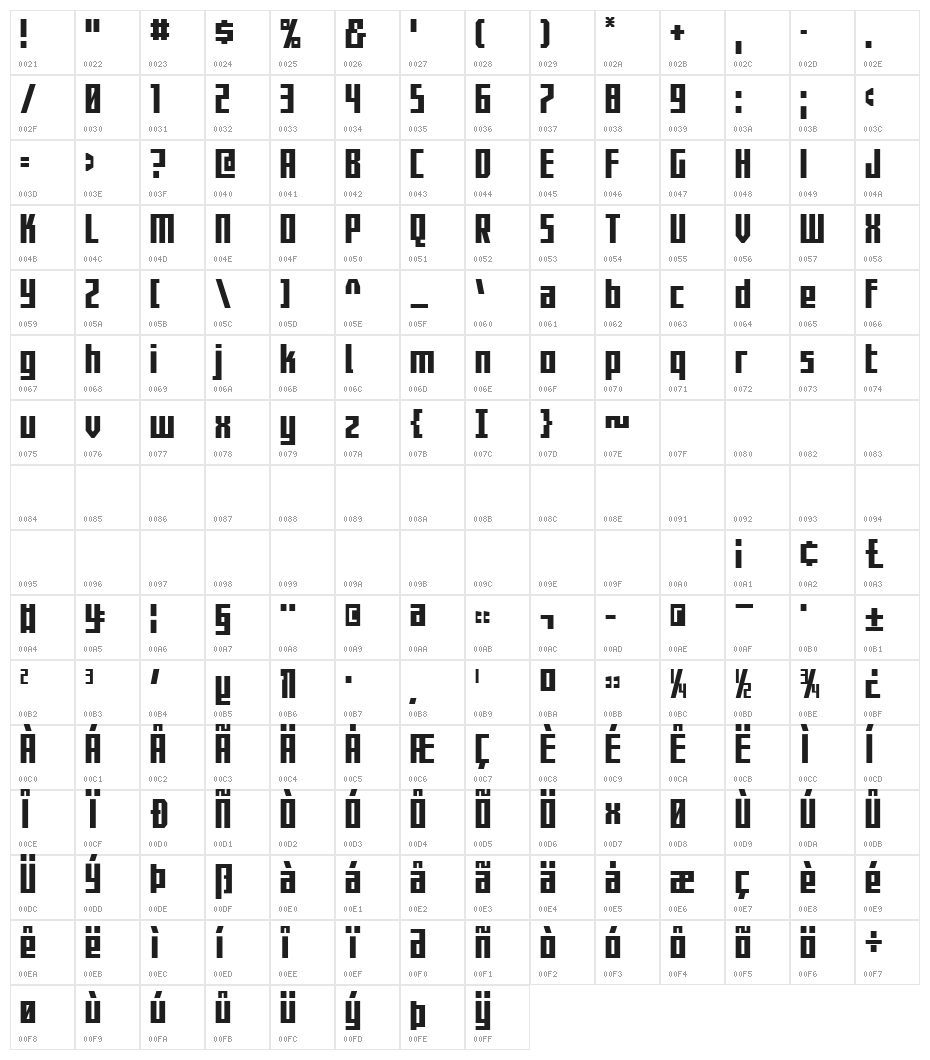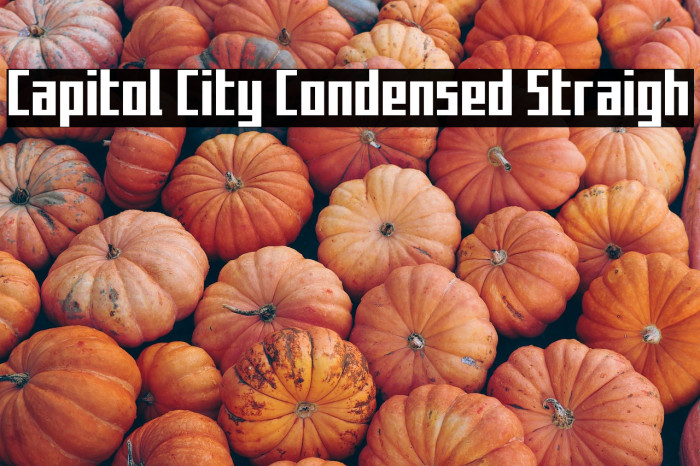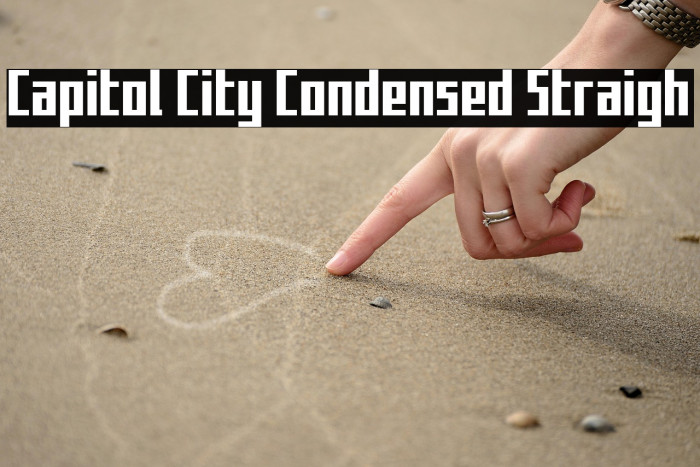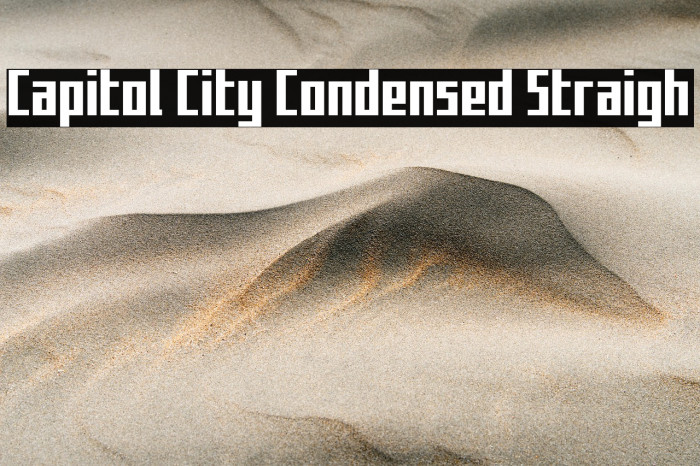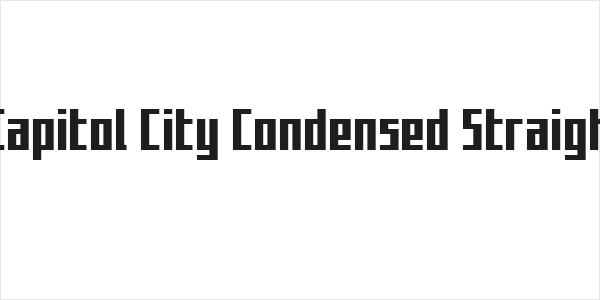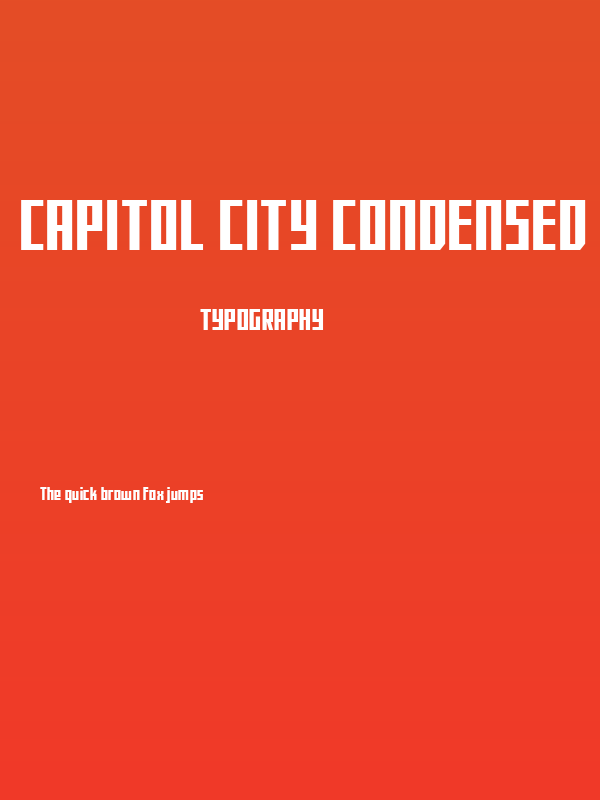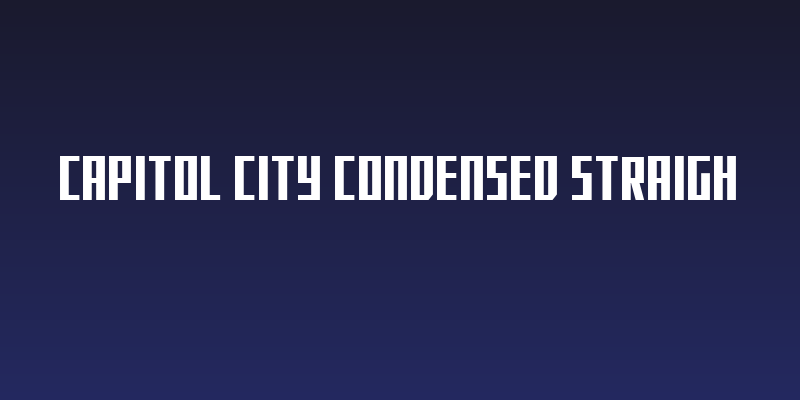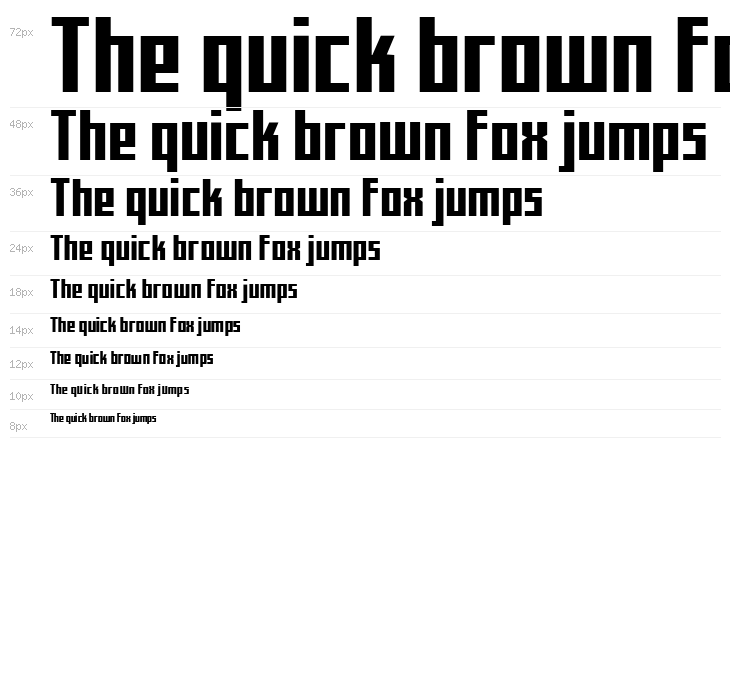
Capitol City Condensed Straigh Font
Capitol City Condensed Straigh Description
This font features a bold, geometric design with a condensed structure, making it highly impactful and attention-grabbing. The characters are uniformly aligned with sharp, angular edges, giving it a modern and futuristic appearance. The uppercase and lowercase letters maintain a consistent height, enhancing its uniformity and readability. The numerals and special characters are designed to match the overall aesthetic, providing a cohesive look across all elements. Its strong presence makes it suitable for projects that require a bold statement.
| Proposed Projects | Ideal for headlines, posters, branding, and any design that requires a strong visual impact. |